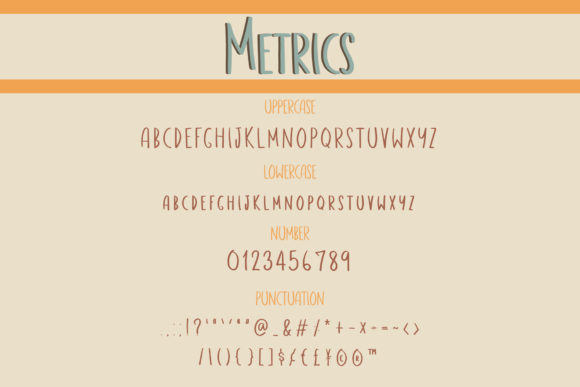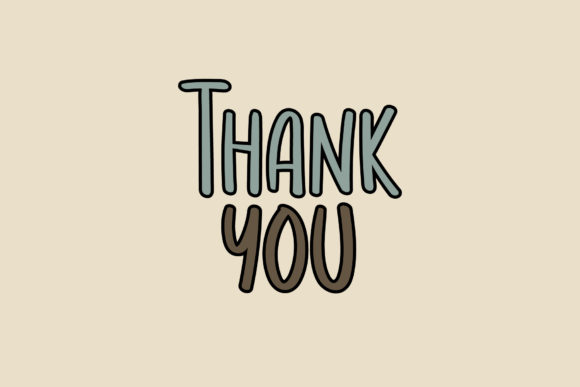
Metrics Font
About Metrics Font
Metrics is a simple and neat handwritten font. Add this font to your creative ideas and notice how it will make them stand out!